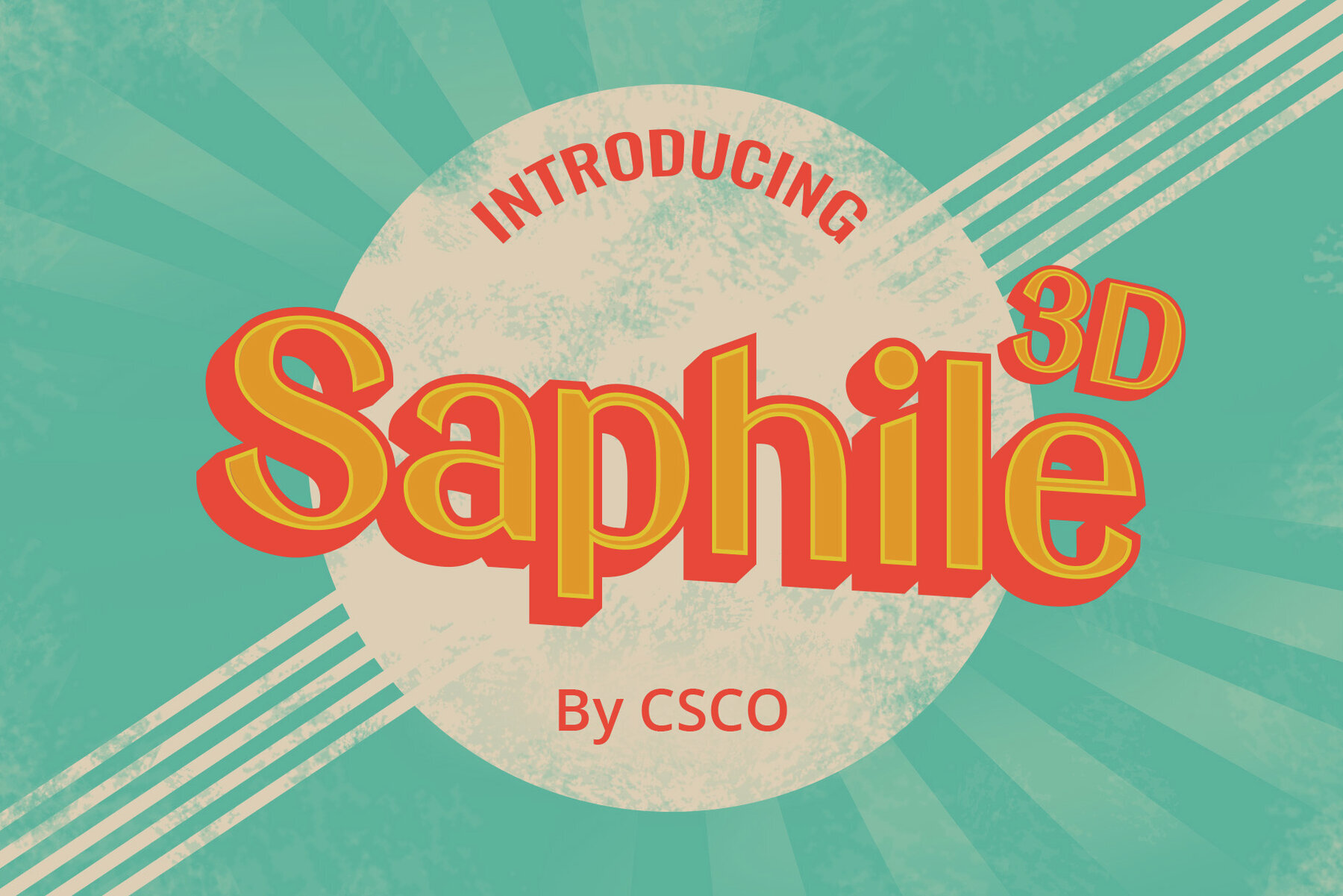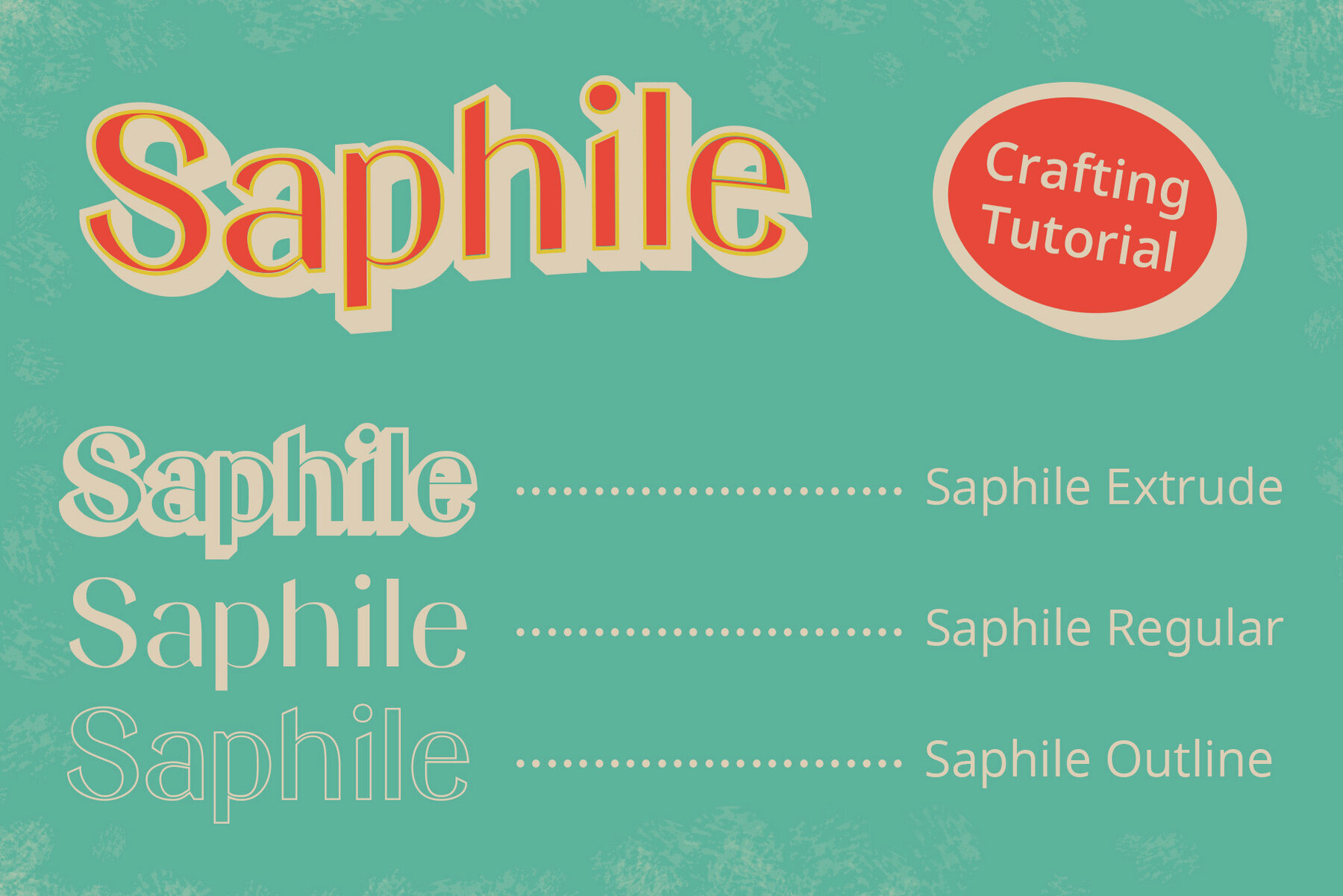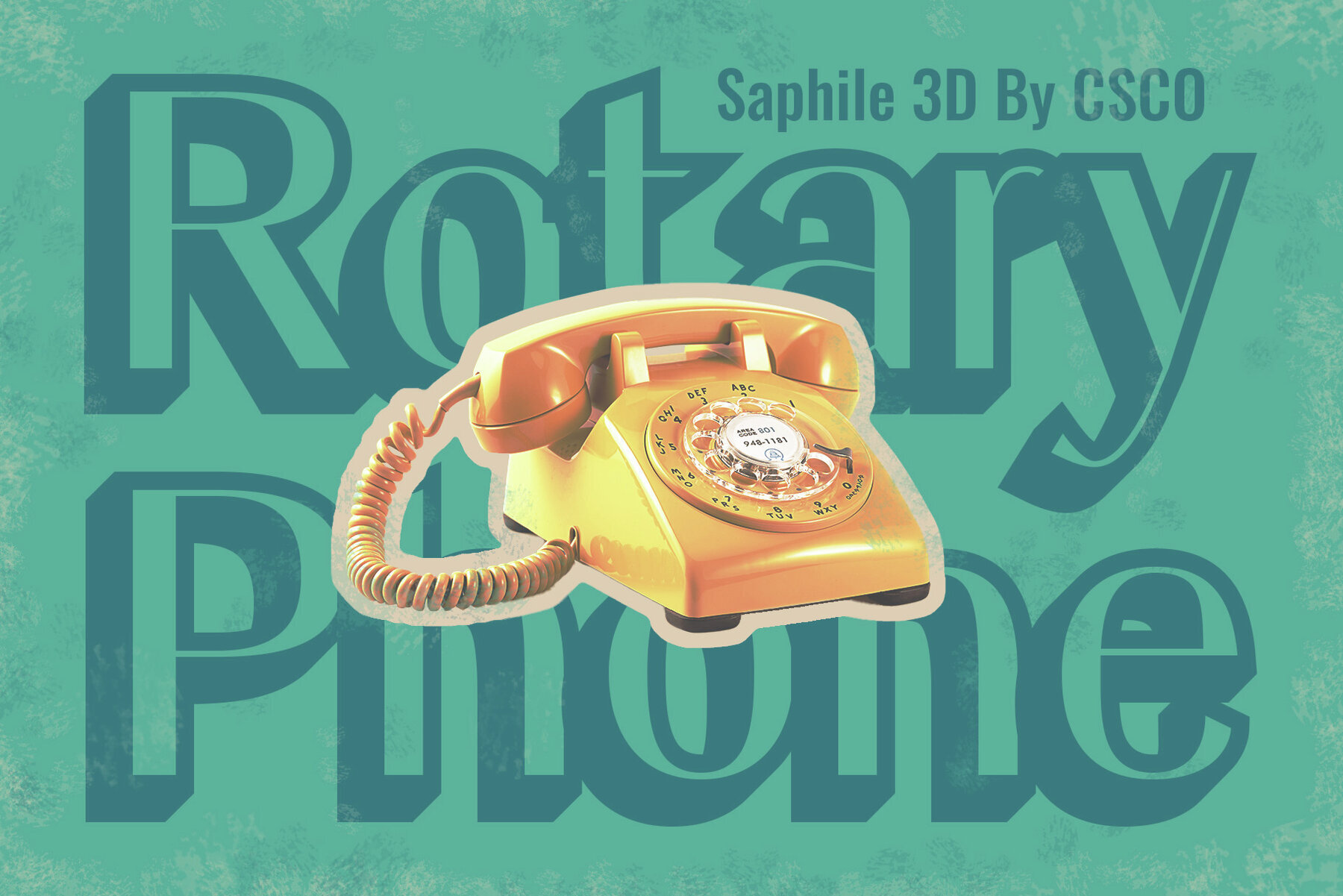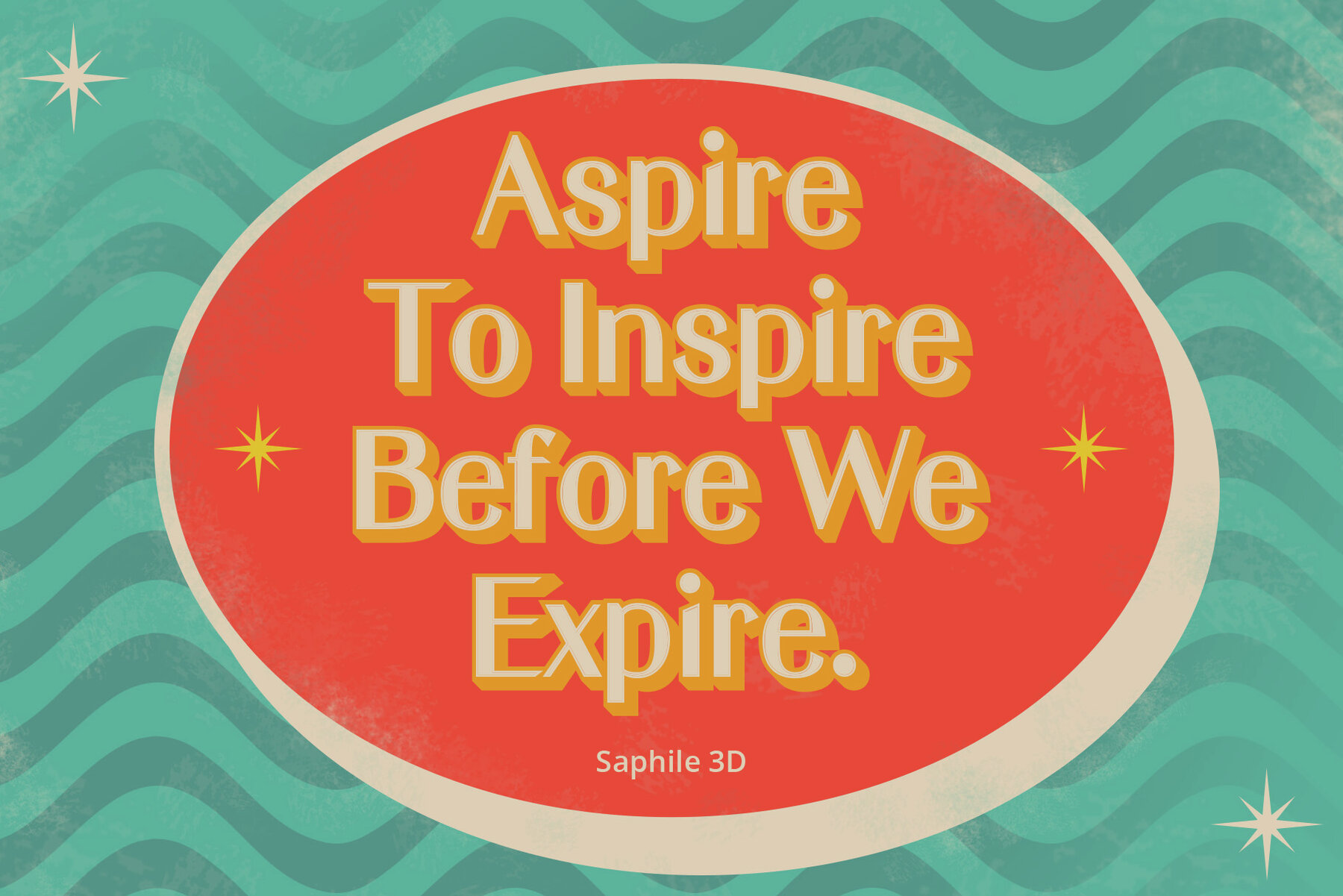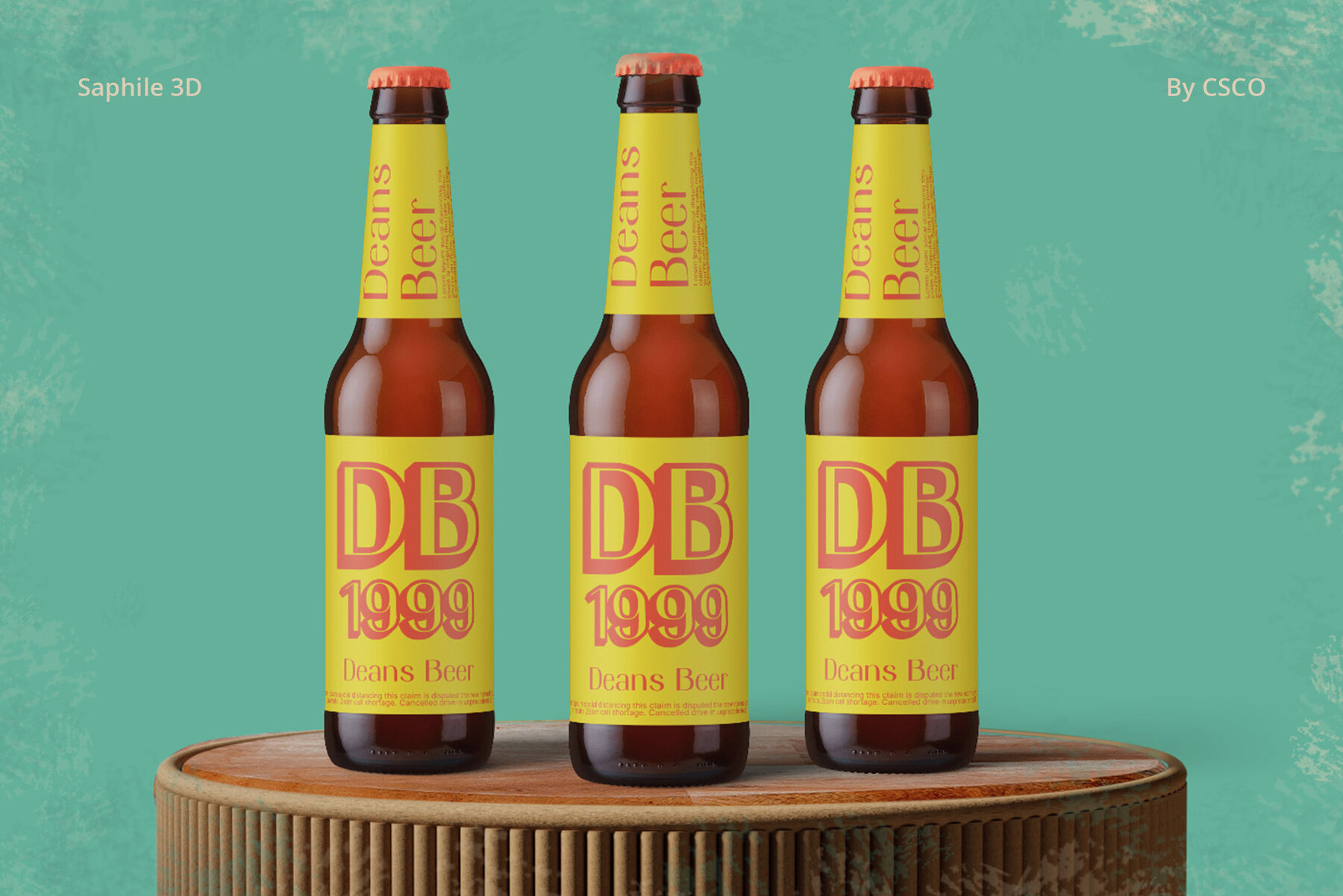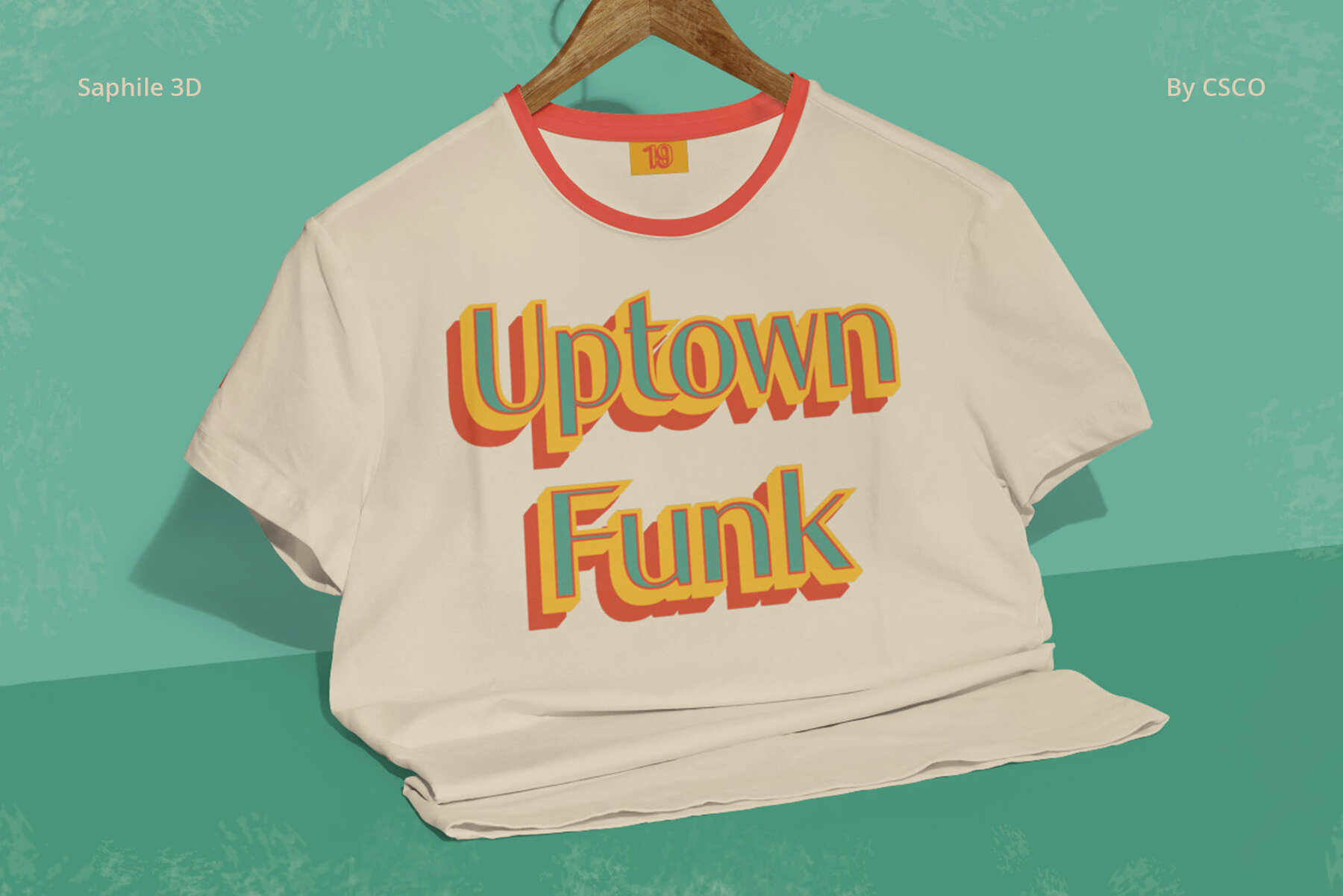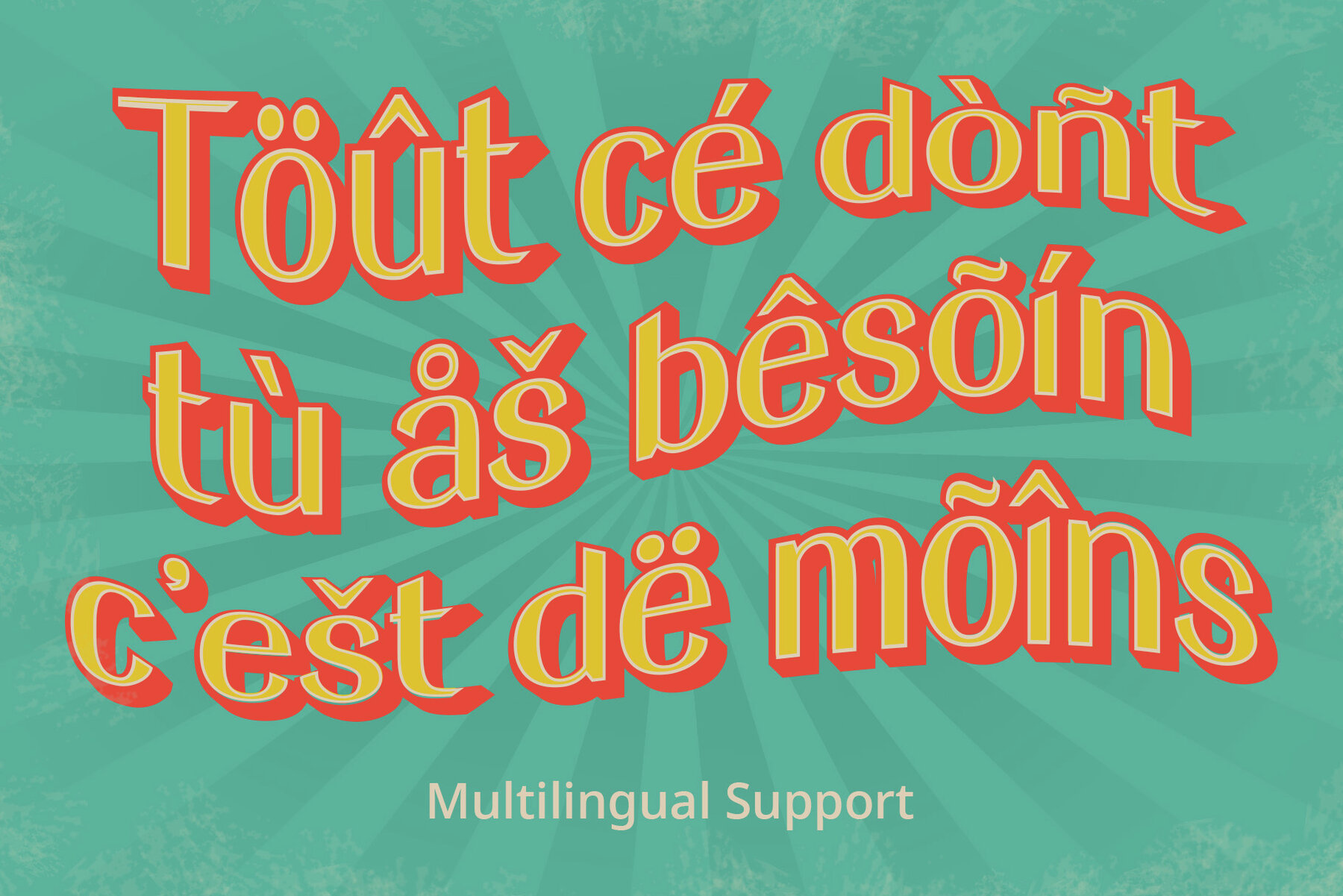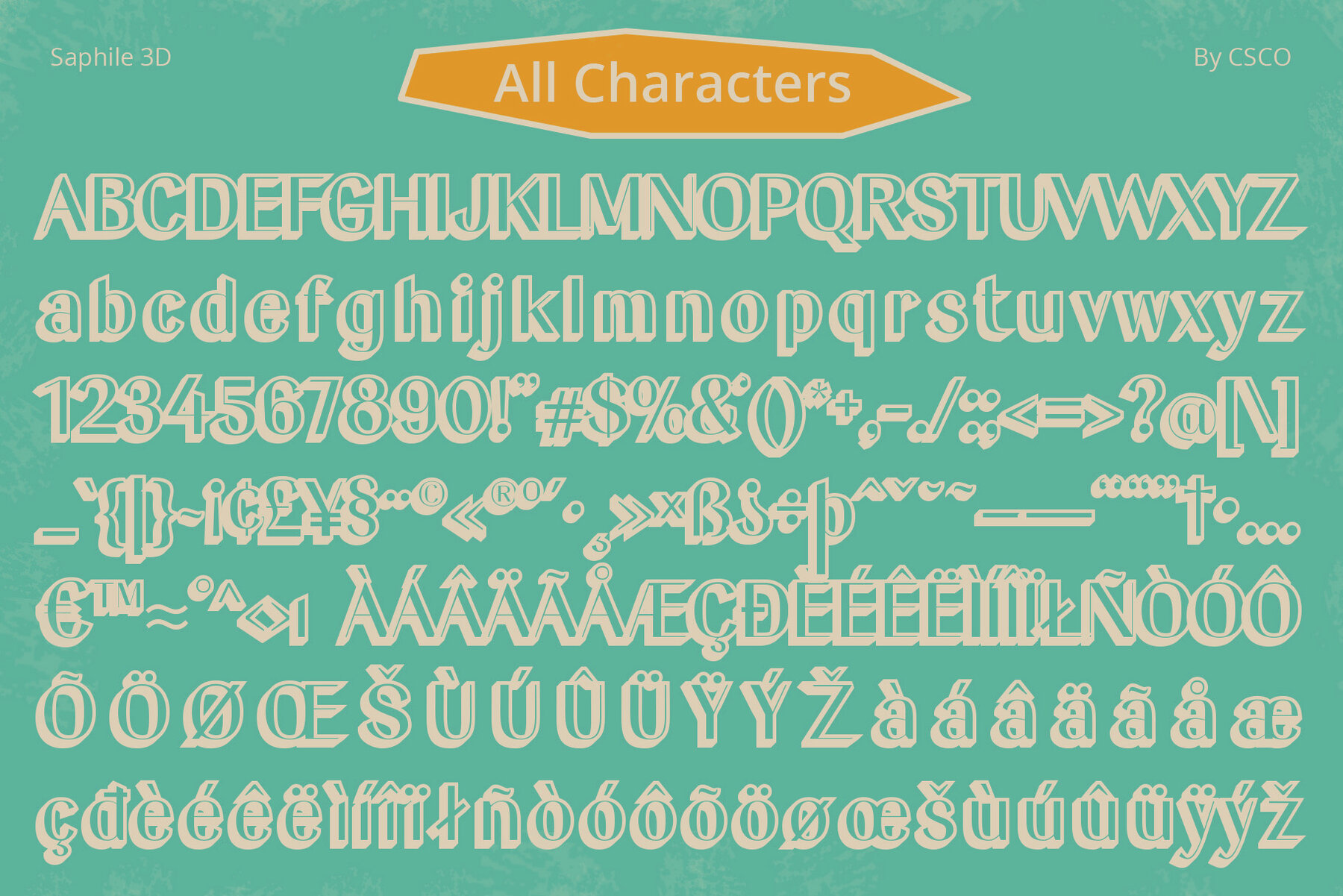
Saphile 3D Font
Nostalgic vibes meet modern appeal with Saphile 3D, a sans-serif display font that seamlessly integrates the vibrant energy of the ’90s with a contemporary flair. Saphile 3D is not your typical retro font. With its unique combination of extrude and outline effects, each character achieves a lifelike, three-dimensional appearance, offering a modern twist on nostalgic roots. Immerse your designs in bold, playful typography that encapsulates the essence of the ’90s. Saphile 3D's dynamic visual presence makes it ideal for eye-catching titles and attention-grabbing displays. Rooted in the ’90s aesthetic, Saphile 3D adapts effortlessly to diverse design needs. Whether it's posters or web graphics, this font injects retro charm without sacrificing modern readability. More than just a font, Saphile 3D bridges eras. Whether crafting throwback designs or injecting nostalgia into contemporary projects, it balances the best of both worlds with ease. You can use this typeface without needing any specialized software. If you have any inquiries or need assistance, please feel free to contact us. We appreciate your support in enhancing your creative projects! Best regards, Craft Supply Co.Saphile 3D: A Retro Revival with a Contemporary Twist
Dimensional Illusion
Bold and Playful Typography
Versatility Across Designs
Conclusion